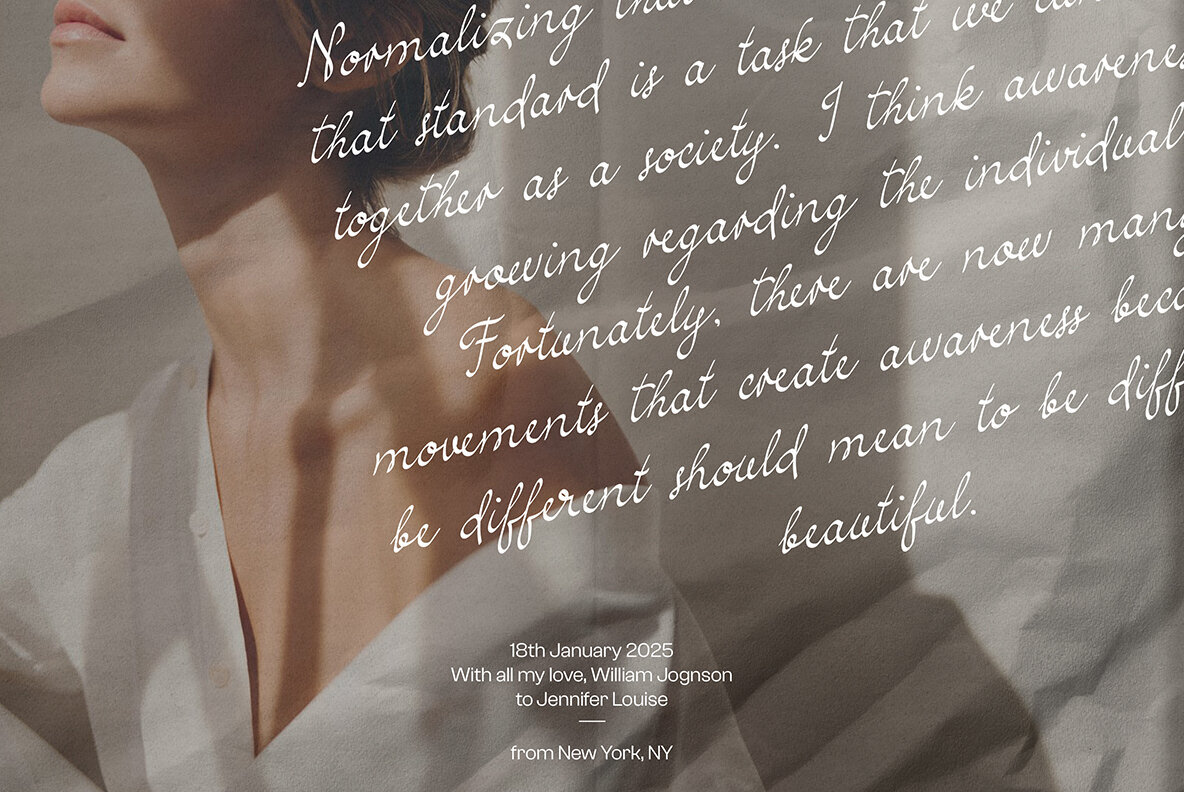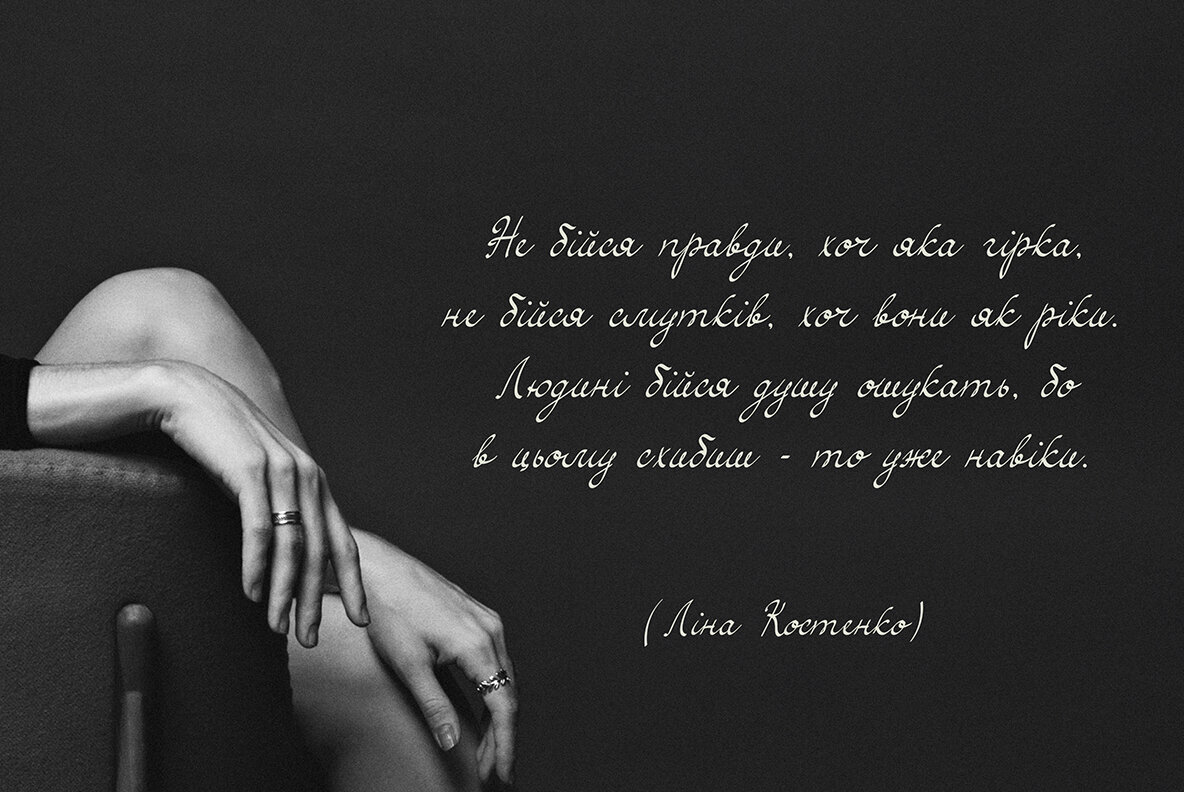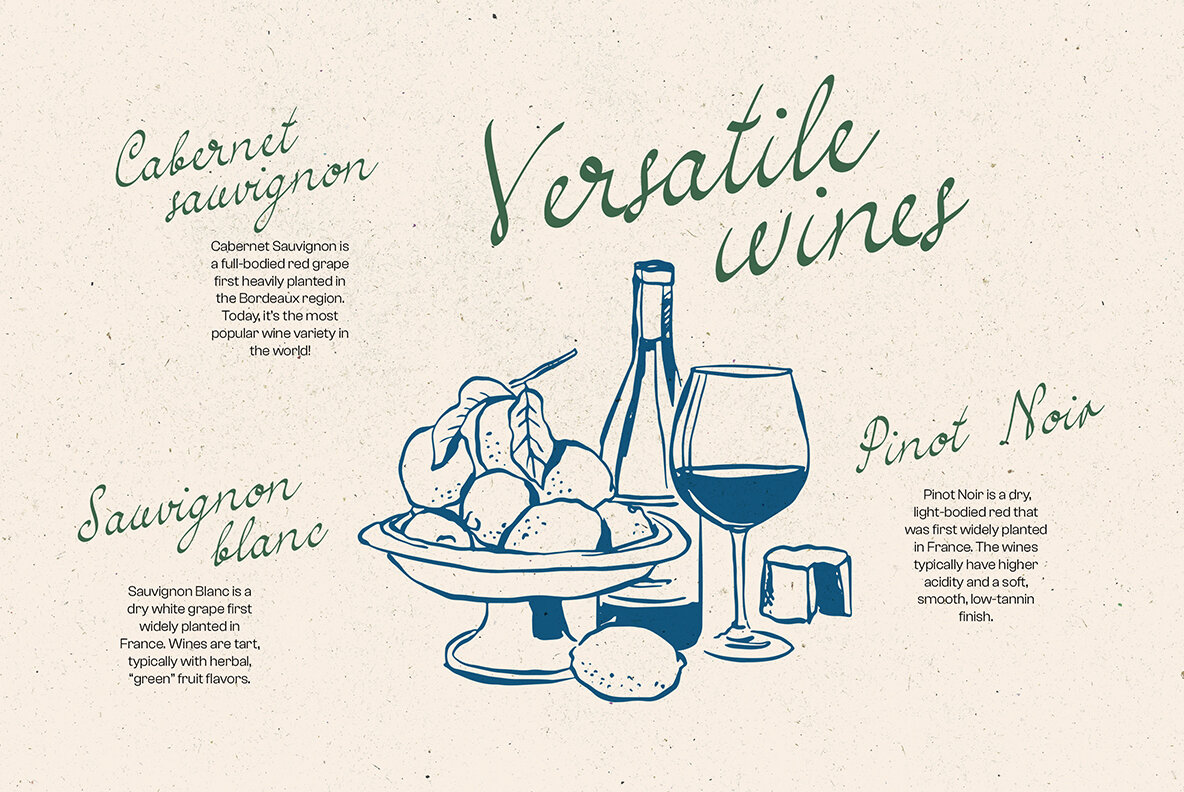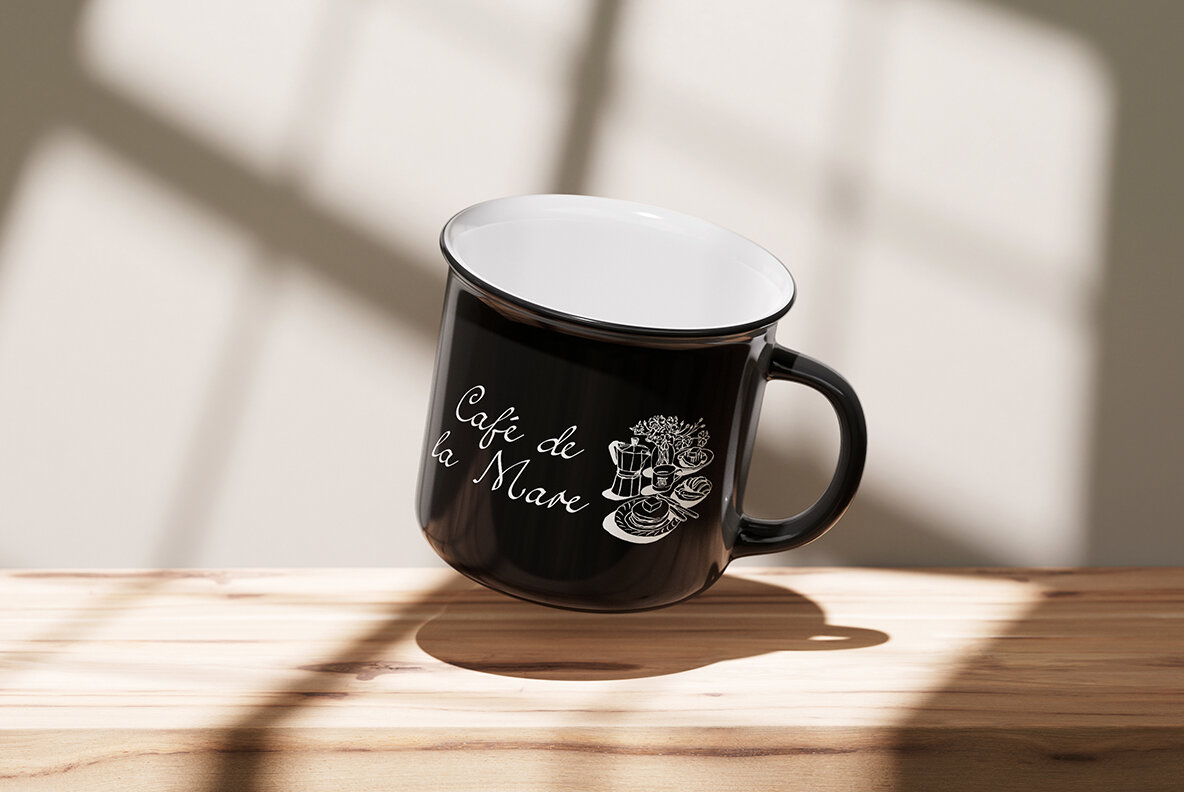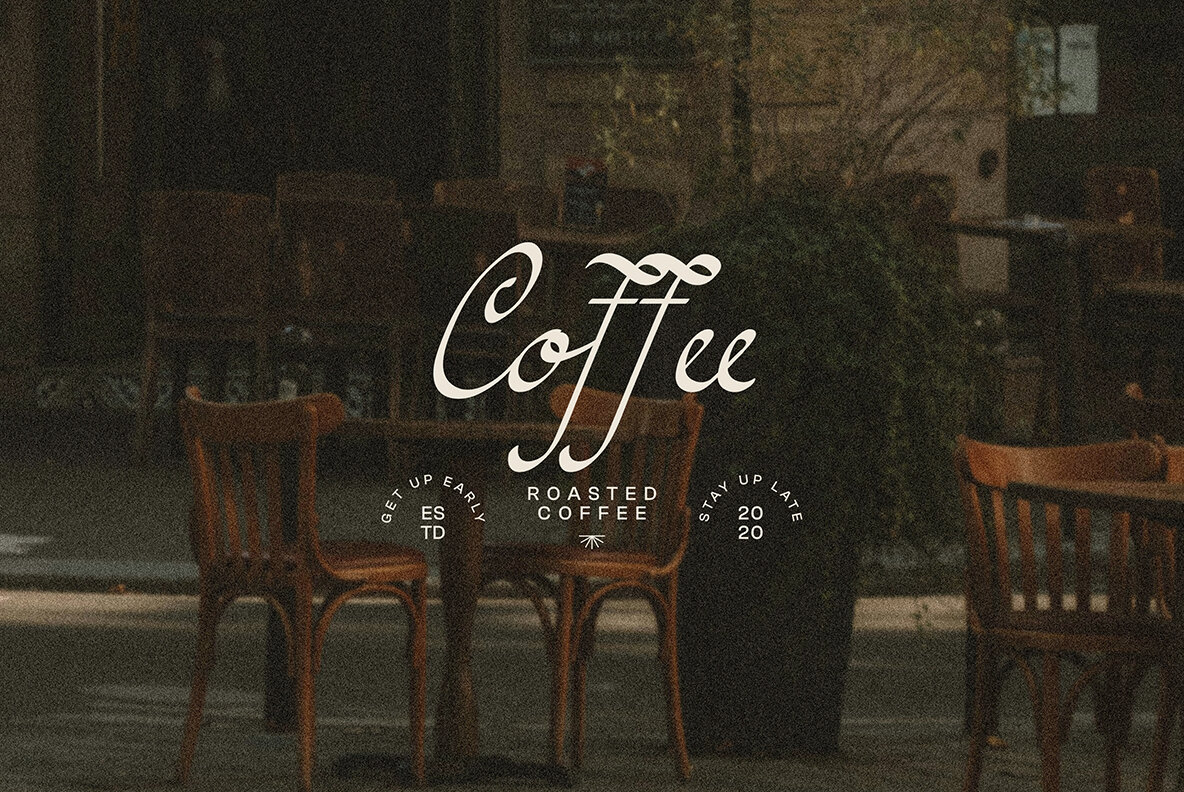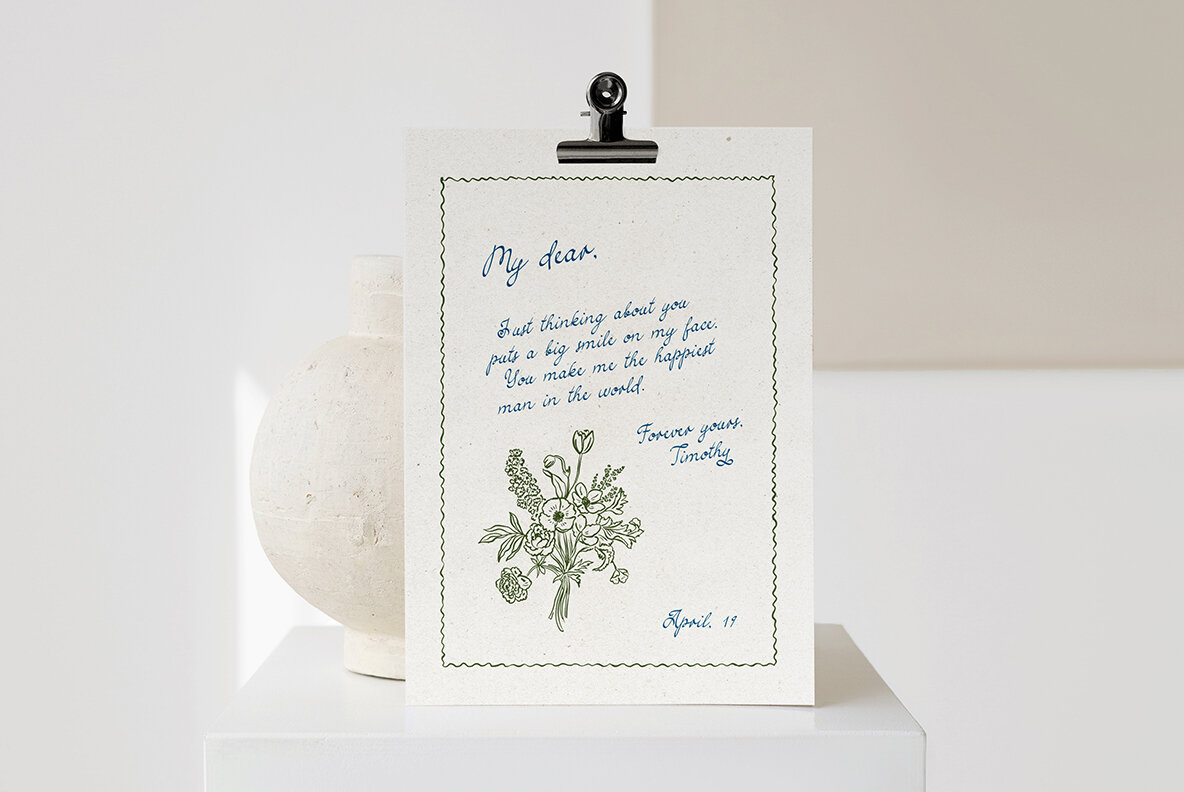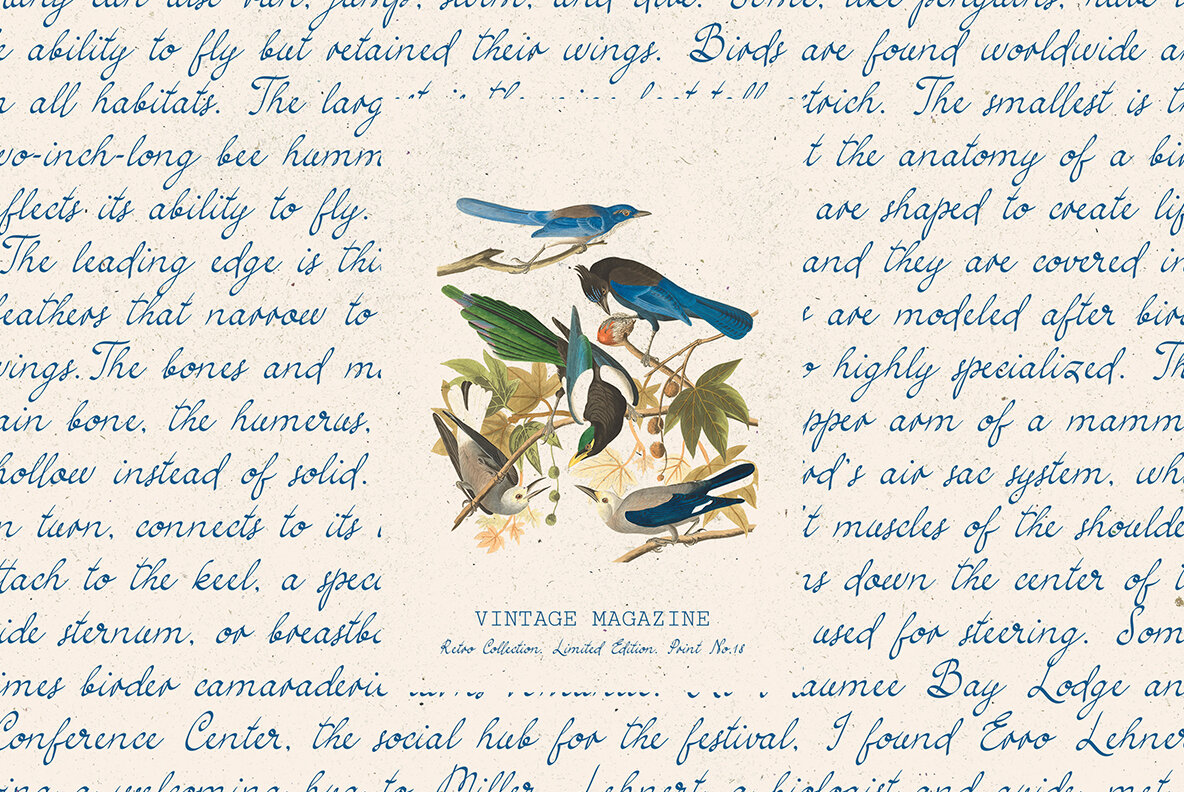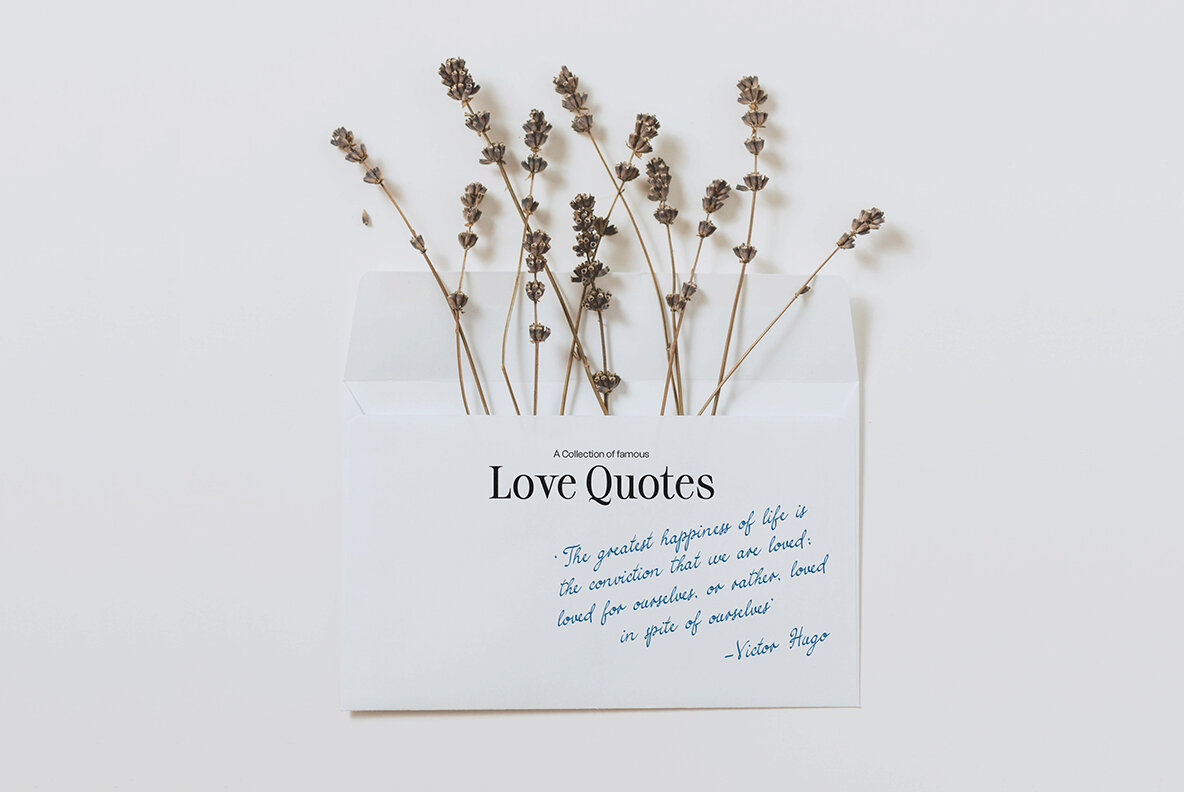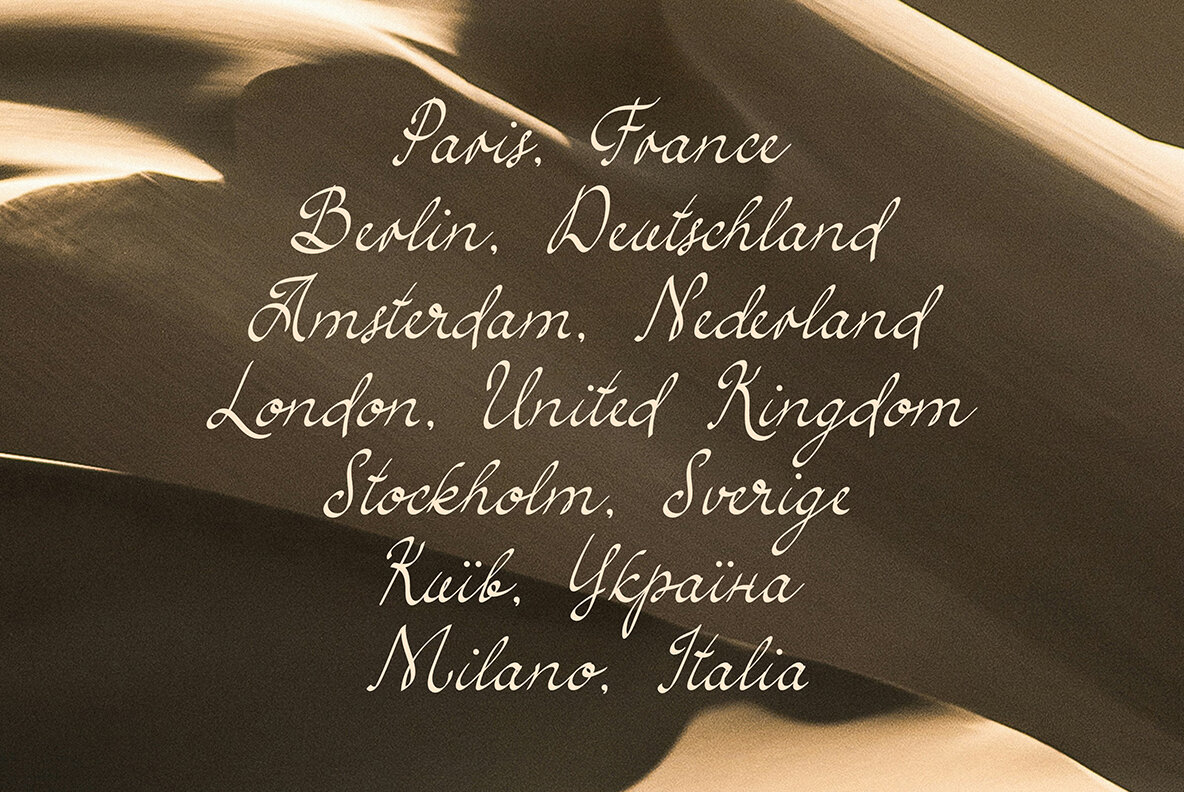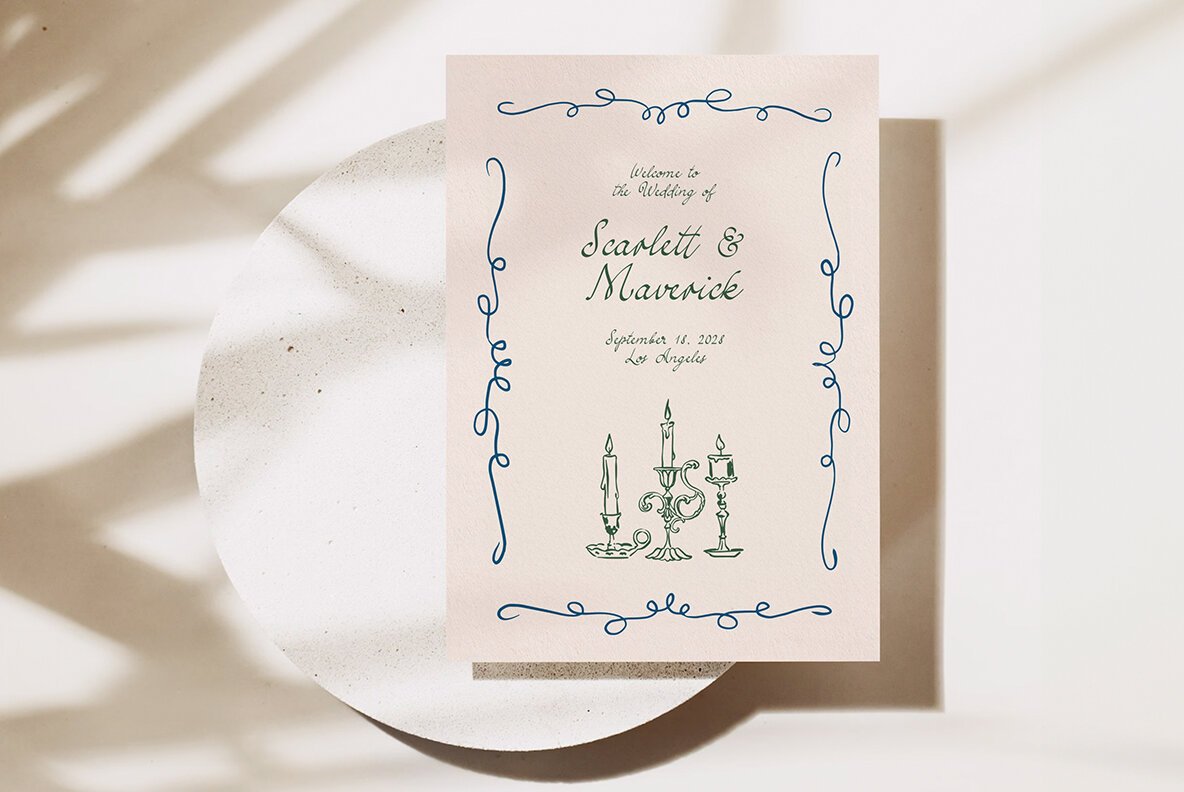
Simple Elegance Font
Simple Elegance
Simple Elegance is a natural-looking script perfect for your next design project. It's versatile enough for packaging design, brand identity, art posters, invitations, restaurant menus, and more. Featuring both Latin and Cyrillic alphabets, this script broadens your design possibilities, ensuring a seamless and elegant look for multilingual projects.
With extensive language support that includes Danish, English, French, German, Low German, Luxembourgish, Norwegian Bokmål, Norwegian Nynorsk, Portuguese, Spanish, Swedish, Swiss German, and Ukrainian, Simple Elegance is designed to meet the needs of a diverse audience. The font comes with OpenType ligatures, enhancing the natural flow of your text, lending a polished and professional touch to any creative endeavor. Note that mock-ups are for presentation purposes and are not included with the purchase.